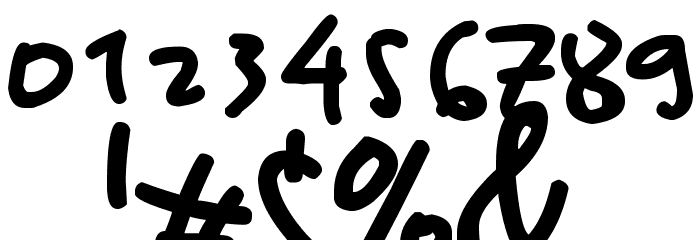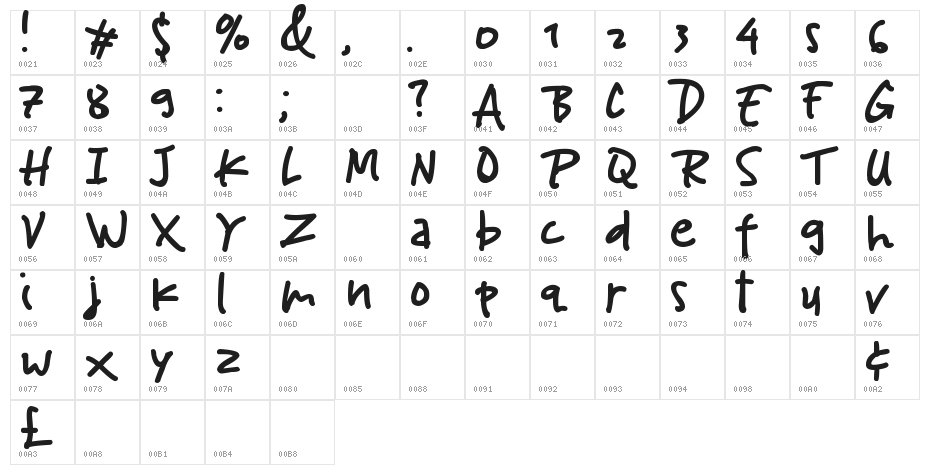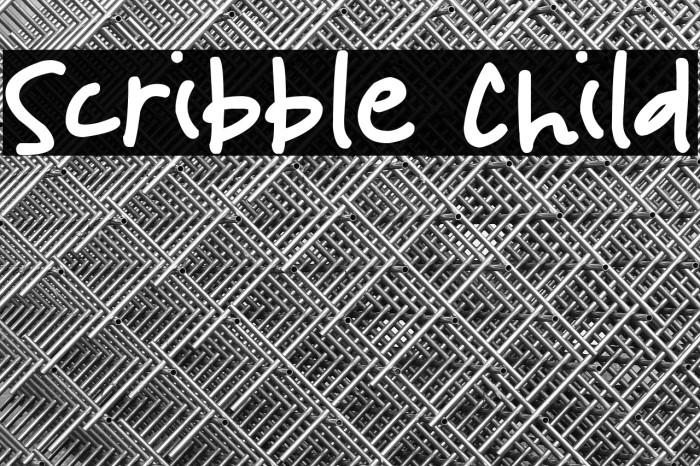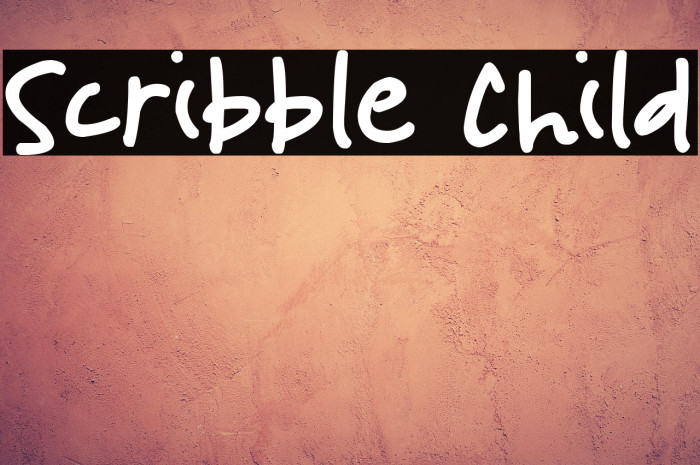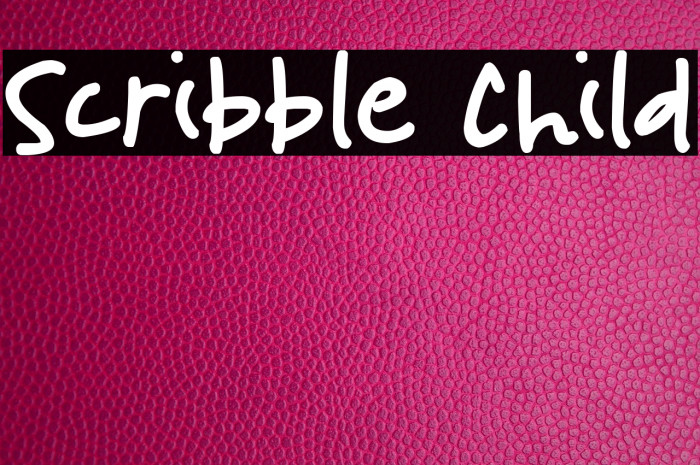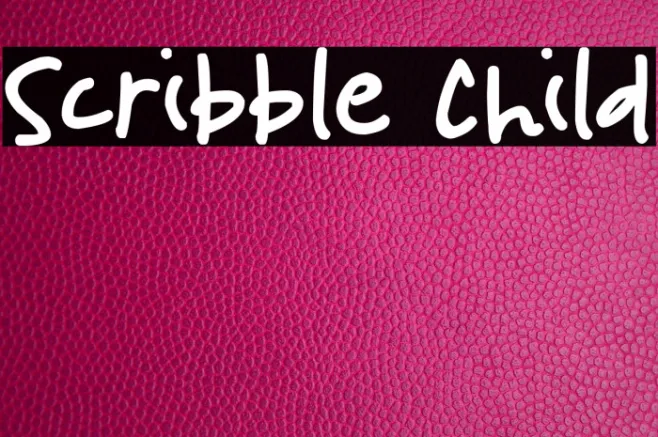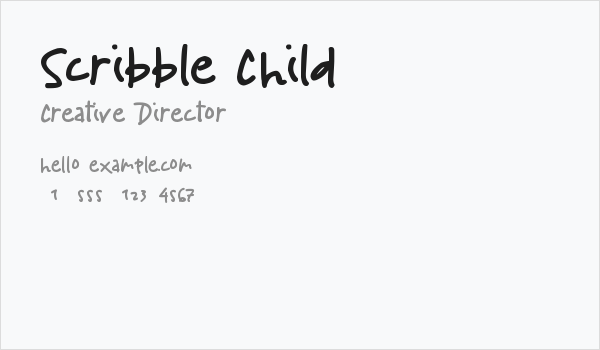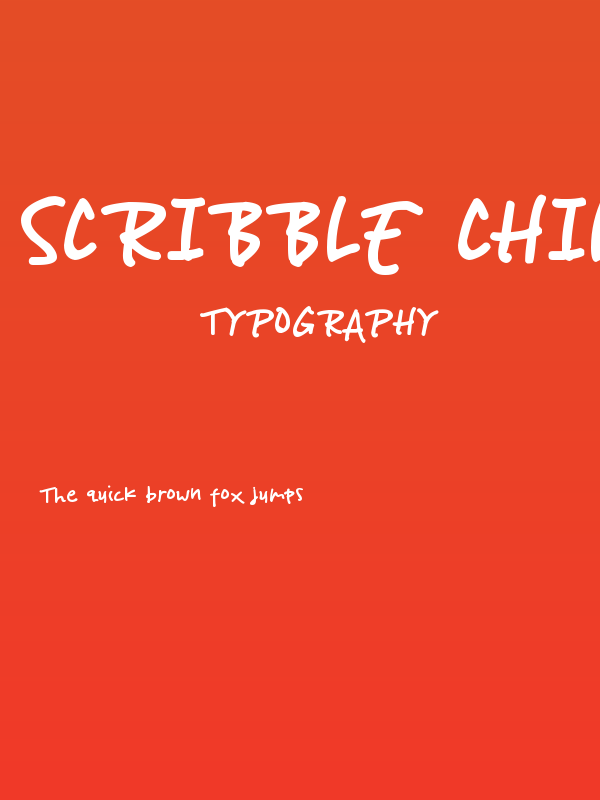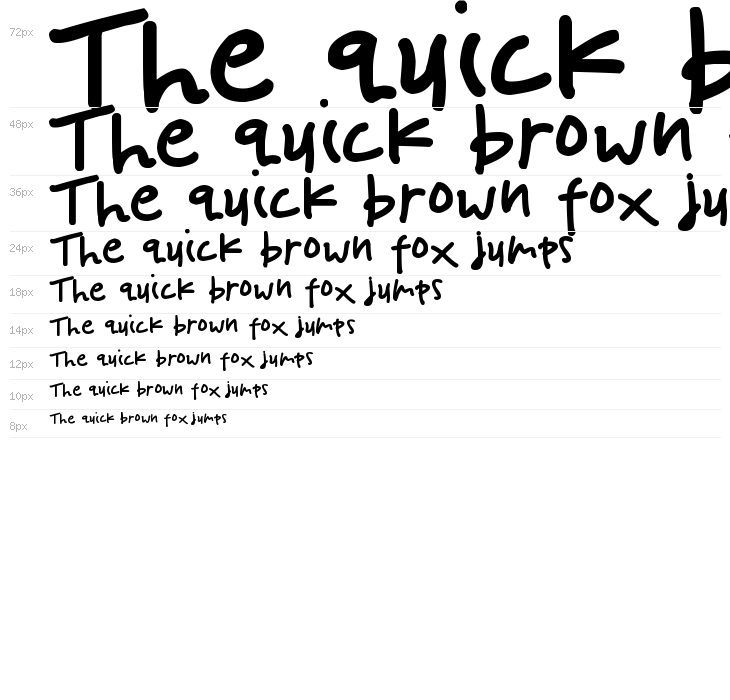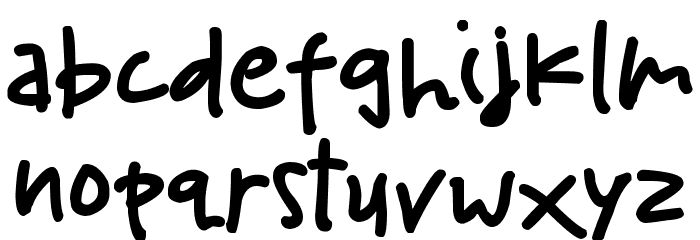
Scribble Child Font
Scribble Child Description
This playful and energetic font mimics the spontaneous and carefree style of a child's handwriting. The letters are bold and slightly irregular, adding a sense of whimsy and authenticity. The strokes are thick and consistent, giving the font a strong presence. The characters are well-spaced, allowing for easy readability despite their informal appearance. This font captures a youthful and creative spirit, making it ideal for projects that aim to convey fun, creativity, and a touch of nostalgia. The numbers and special characters maintain the same lively style, ensuring a cohesive look across all text elements.